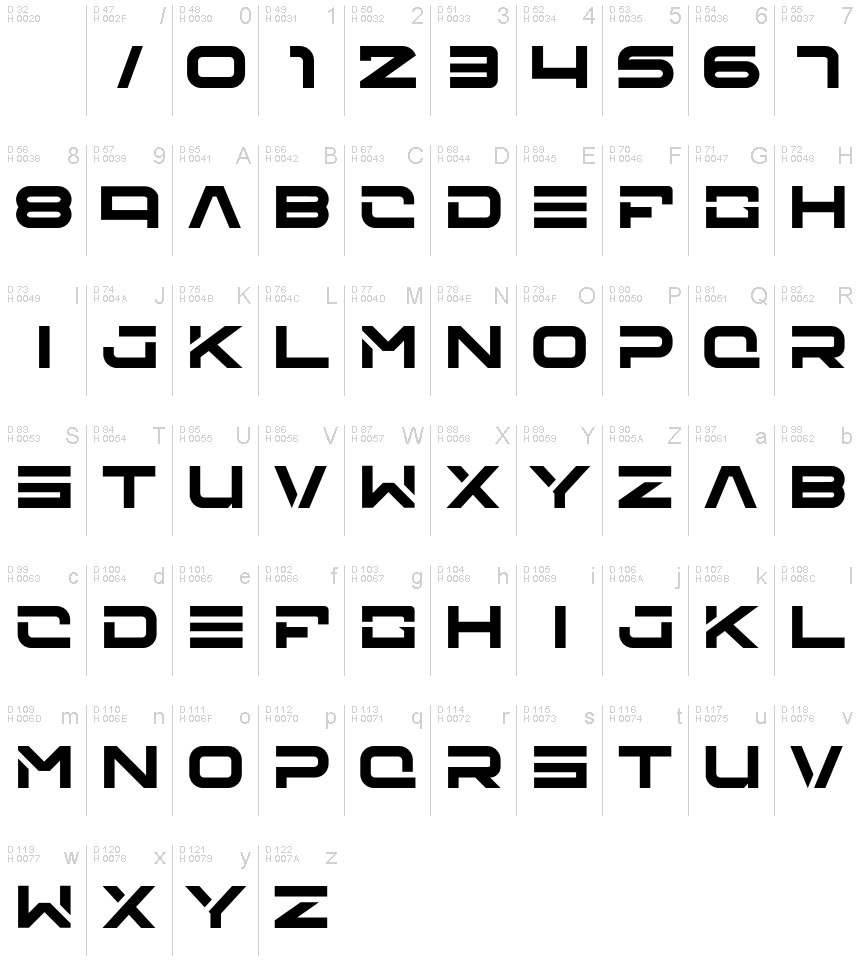
Airnt Quantum
Airnt Quantum stands out with its bold, expanded presence, boasting a futuristic flair that's unmistakably techno. Crafted by the innovative Sesohq, this display type from the Airnt family carries an urban vibe that echoes through its robust characters. The font's assertive and forward-looking style is a nod to its predecessors in the Airnt lineage, celebrating the momentum they've inspired.
This dynamic typeface is well-suited for projects that demand attention and aim to convey a sense of cutting-edge modernity—think branding for tech startups, impactful titles for sci-fi or gaming interfaces, and striking promotional materials. Airnt Quantum's confident strokes make it a compelling choice for designers looking to infuse their work with an air of contemporary cool.